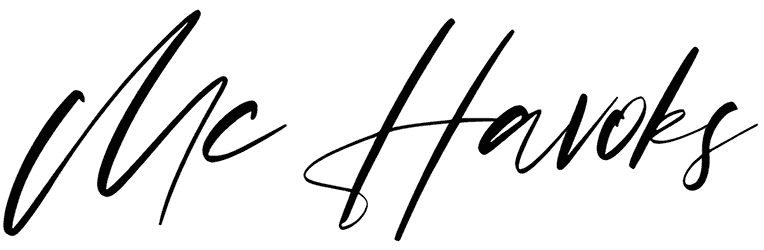
It is the right time to add your own personal signature to all your graphic content, including posters, business cards, book covers, branding projects, and headlines. To fulfill this ambition, a script font such as Mc Havoks would be helpful.
Since it comes with a cursive style and sophisticated flow, you can easily impress the audience by conveying a sense of professionalism, dynamism, dreaminess, or precision. Although numbers are not supported by this handwritten font, its advantages still outweigh the disadvantages.